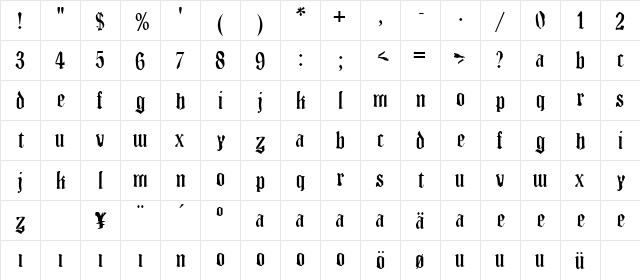
Multikultur Regular Font Preview
Multikultur Regular
Multikultur Regular Font Details
Design Context for Multikultur Typeface
Multikultur is a composed and adaptable typeface that performs quietly and consistently across a wide range of design contexts.